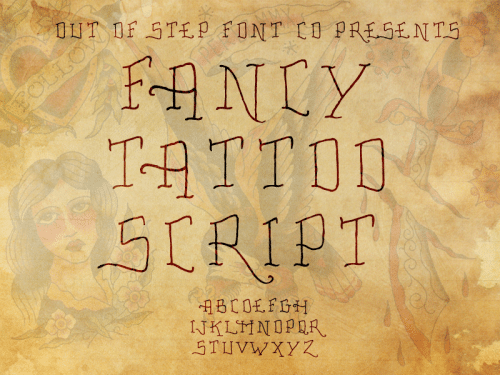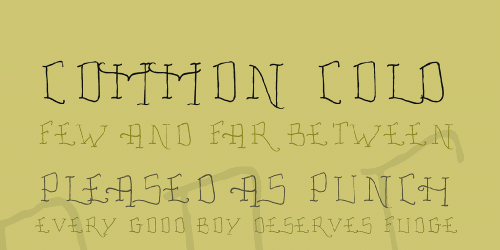
No one likes to be told that their flash paintings look fake, or digitally painted. Fancy Tattoo Script was developed with rough edges and imperfections in order to make your digital art look authentic.